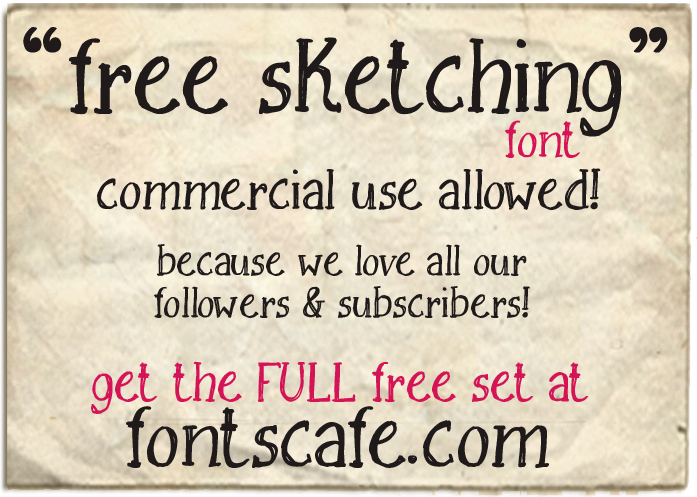
Free Sketching from Fonts Cafe is a free trash-style script with the raw look of hurried pen work. Its wavering strokes shift abruptly from thin to thick, and several ends collect in blunt, inky daubs. Tall, crooked letters and an uneven baseline keep the writing active and deliberately unpolished.
As rough marker lettering, it becomes part of poster artwork. The same unruly line suits album covers, skate merchandise, and independent event graphics, linking all four applications to underground music and street culture.